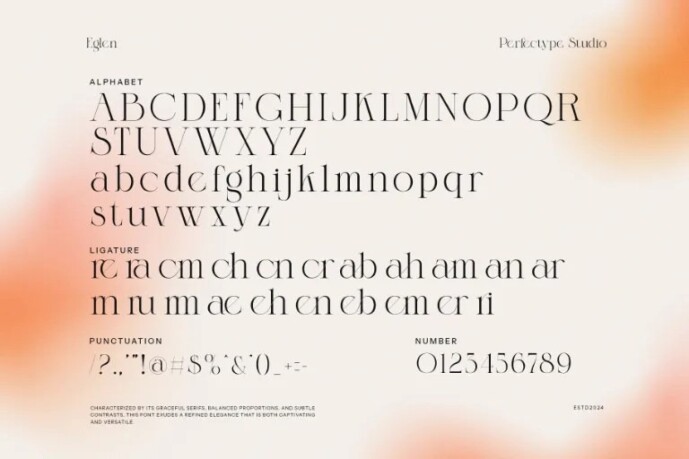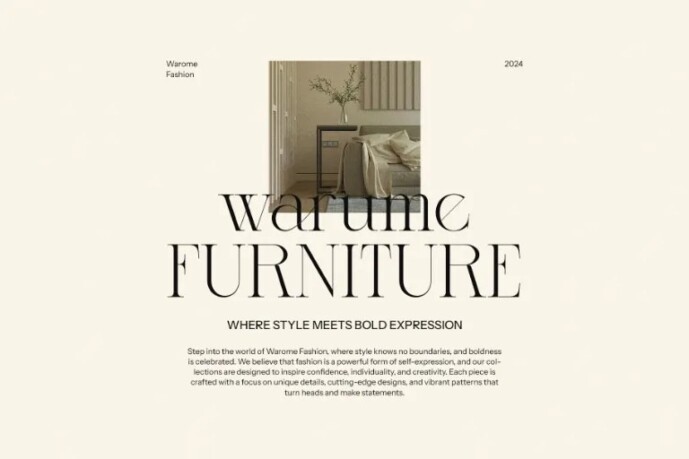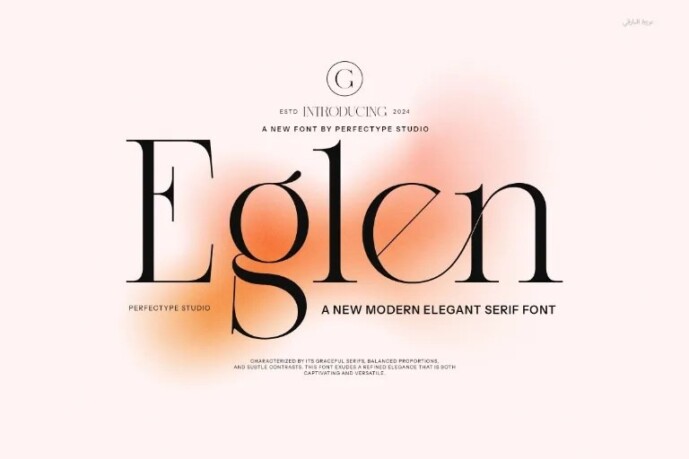
Eglen Font
Designer: Arfianto
Eglen Font is an elegant and classy serif font, perfect for all branding and logo designs. Created with a focus on luxury and sophistication, this font meets a wide range of design needs. It comes with beautiful and unique ligatures, along with alternate options, providing flexibility and creativity. This font is ideal for various applications, including branding projects, logos, social media posts, advertisements, labels, product packaging, photography, wedding designs, watermarks, invitations, stationery, and more. It offers high readability and adds a premium touch to any project.